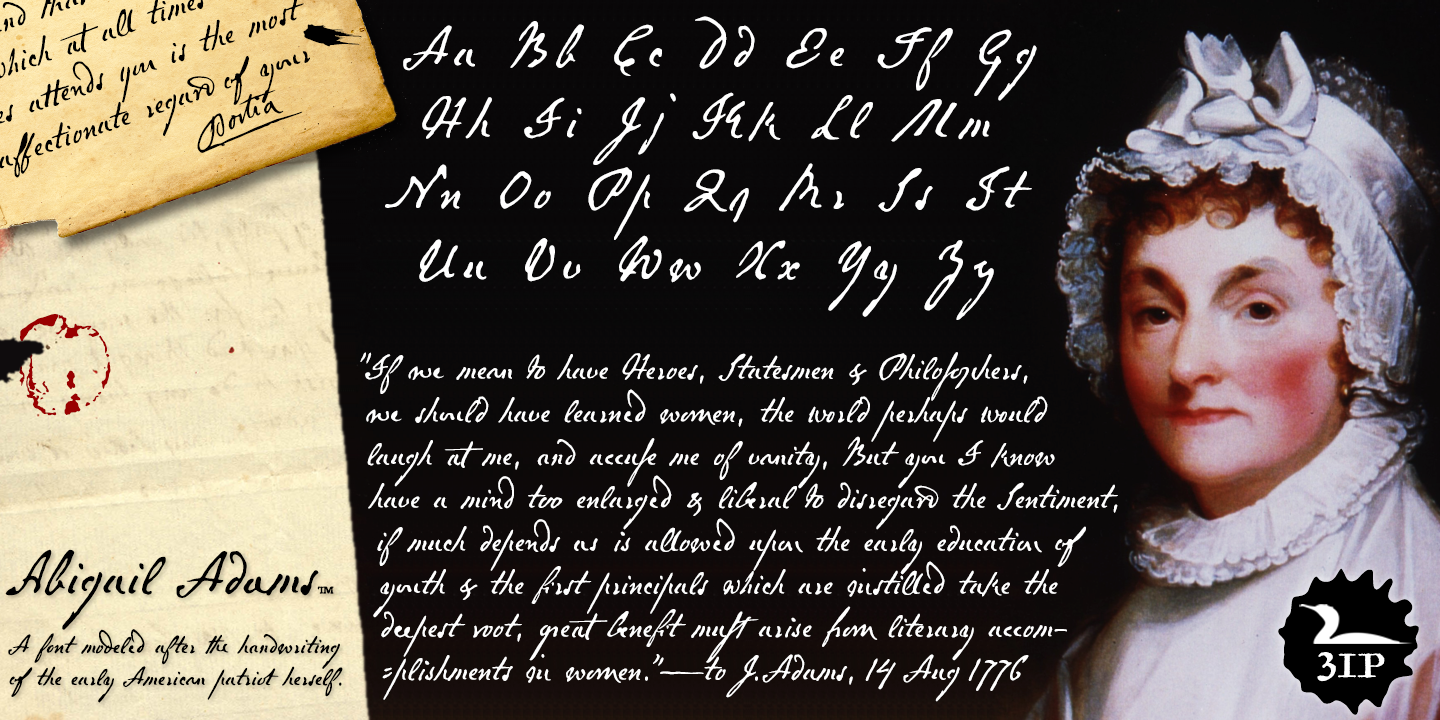
Abigail Adams Font is an elegant and historically resonant typeface, perfect for designs that aim to convey a sense of classic grace, authentic heritage, or a refined calligraphic touch. Inspired by the sophisticated penmanship of historical figures or vintage documents, its delicate strokes and dignified letterforms make it an excellent choice for formal invitations, historical society materials, luxury branding, and literary works. Imagine it gracing the stationery for a wedding with a classic theme, adding an air of timeless beauty to a museum exhibit on early American history, or providing a distinguished feel to high-end product packaging. This font is also superb for diplomas and certificates, genealogy projects, and any project where integrity, traditional elegance, and a visually rich connection to the past are paramount. It doesn't just display text; it whispers stories from a bygone era with poise and distinction.
What makes Abigail Adams Font so exciting is its remarkable ability to evoke a sense of refined education and enduring legacy. It possesses a distinctive charm that feels both authentic and sophisticated, drawing inspiration from meticulous historical handwriting while remaining beautifully legible. This unique personality makes it a fantastic choice for designers looking to infuse their projects with a sense of graceful artistry and profound respect for tradition. It’s a font that speaks with a cultured and elegant voice, making it ideal for brands and content creators who want to convey authenticity, intellectual depth, and a compelling, evocative aesthetic. Its refined appeal can make any message feel more significant and deeply rooted in historical excellence.
The Abigail Adams Font family, given its often artistic and script-inspired nature, might not feature the extensive range of weights found in more utilitarian typefaces. However, it typically offers different styles or complementary elements that enhance its unique aesthetic and provide creative flexibility. You might find variations such as:
• Abigail Adams Regular (the primary elegant script style)
• Abigail Adams Bold (for added emphasis while maintaining the script flow)
• Abigail Adams Italic (if designed with a more pronounced slant or decorative flourishes)
• Abigail Adams Alternates (additional stylistic characters or ligatures for natural flow)
• Abigail Adams Ornaments/Swashes (decorative elements to complement the text)
These variations empower designers to maintain a consistent thematic aesthetic while adding depth and personalized flair to their compositions. The availability of Abigail Adams Font Free Download offers an excellent opportunity to explore its unique blend of historical charm and sophisticated elegance for your personal design ventures.